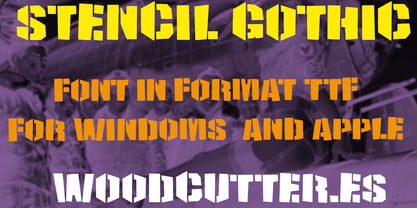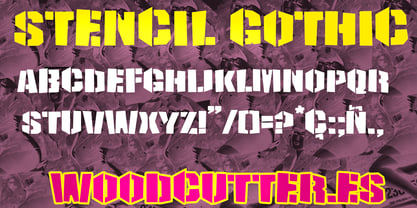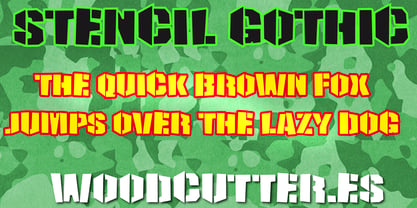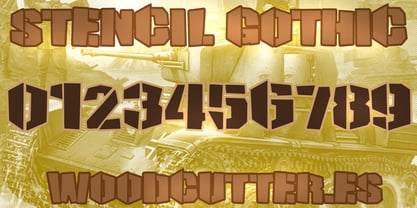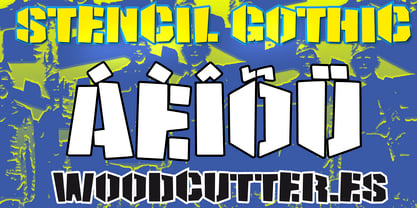
Stencil Gothic
“Stencil Gothic” is an uppercase font that combines the solidity of stencil-style letters with a unique gothic touch. Its strokes are strong, defined, and structured, with the characteristic cuts of stencils, giving it an industrial and robust appearance. Despite its hardness, it maintains an elegant aesthetic, making it suitable for both modern and classic designs. It includes accents, allowing for use in multiple languages. Perfect for posters, logos, or projects that require a strong visual impact with a sophisticated yet functional vibe.